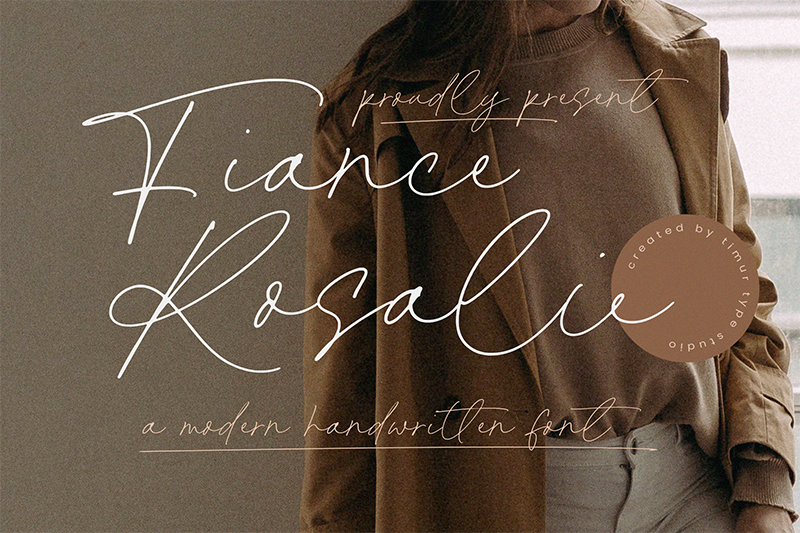
Font name: | Fiance Rosalie |
Author: | Timur Type |
Introduced by Timurtype Studio! Fiance Rosalie is a Modern Handwritten Font This font is a stylish and contemporary choice for your design projects. With its sleek and fluid letterforms, this font combines elegance with a touch of informality. The clean lines and sophisticated curves give the Fiance Rosalie font a modern and chic aesthetic, perfect for adding a trendy twist to your branding materials, invitations, and social media graphics. Whether you're aiming for a sleek and professional look or a casual and approachable vibe, the Fiance Rosalie font offers versatility and style. Embrace the modern sophistication of the Fiance Rosalie handwritten font and elevate your designs with its polished charm These fonts include: OTF TTF WOFF Fiance Rosalie Font also supports multilingualism. Fiance Rosalie Font features premium : -Full Set of standard alphabet and punctuation By installing or using this font, you are agree to the Product Usage Agreement: � This demo font is ONLY for PERSONAL USE. NO COMMERCIAL USE ALLOWED! � Here is the link to purchase full version and commercial license: https://timurtype.com/product/fiance-rosalie/ � For Corporate use you have to purchase Corporate license timurtype.studio@gmail.com More... |